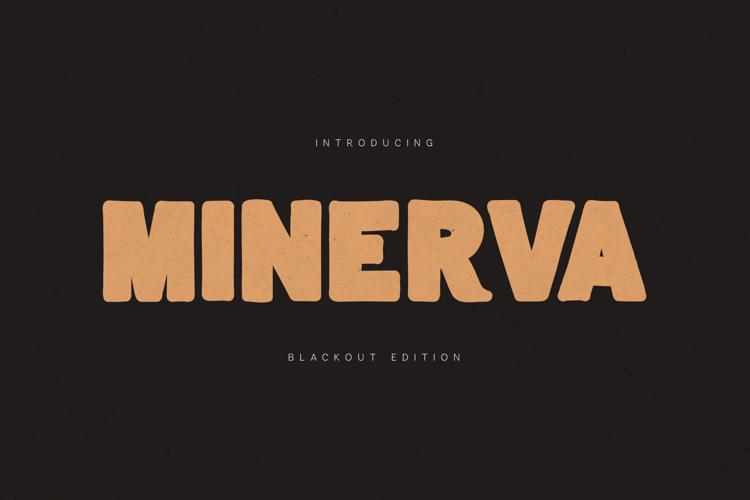
Minerva Blackout Font | Retro Bold Display Typeface
Minerva Blackout is a bold retro display font inspired by vintage packaging, classic advertising, old-school signage, and nostalgic print design. Featuring chunky letterforms, soft rounded corners, and a handcrafted textured appearance, this typeface brings warmth, personality, and unmistakable character to every project.
Designed to stand out in large sizes, Minerva Blackout is perfect for logos, posters, packaging, branding, product labels, editorial layouts, social media graphics, book covers, restaurant menus, merchandise designs, advertising campaigns, and marketing materials. Its playful yet powerful aesthetic combines vintage charm with modern usability, making it suitable for both professional branding and creative projects.
The font includes uppercase and lowercase characters, numerals, punctuation, multilingual language support, and carefully crafted glyphs that maintain excellent readability while delivering strong visual impact.
Whether you're creating retro-inspired branding, bold headlines, food packaging, craft product labels, lifestyle brands, or eye-catching promotional graphics, Minerva Blackout provides a distinctive typographic voice that feels authentic, friendly, and memorable.
- Retro Display Typeface
- Uppercase & Lowercase Characters
- Numbers & Punctuation
- Multilingual Language Support
- Vintage Inspired Design
- Bold Chunky Letterforms
- Logo & Branding Ready
- High Readability
- Perfect for Headlines & Packaging